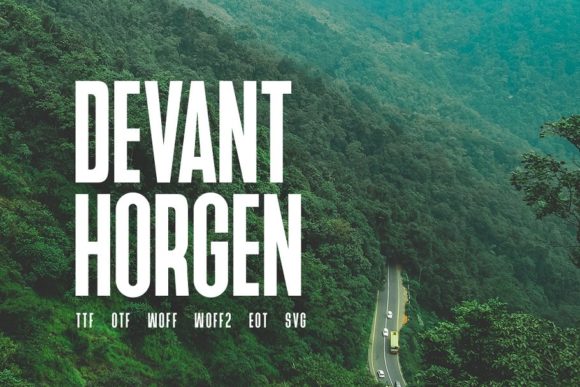
Unleash the Power of Expression: Introducing Devant Horgen, the Sans Serif Font Family That Will Transform Your Kindle Print Projects.
Journey into the realm of typography with Devant Horgen, a minimalist and neat sans-serif font family destined to revolutionize your Kindle print projects. Crafted meticulously by the skilled hands of Webhance, Devant Horgen is a symphony of clean lines, elegant curves, and understated sophistication that will elevate your creations to new heights.
With its inherent versatility, Devant Horgen effortlessly adapts to a vast array of projects, becoming the perfect companion for captivating e-books, engaging novels, informative reports, and any written work that demands a touch of refined elegance. Let your imagination run wild as you witness the transformative power of Devant Horgen, turning mere words into captivating tales that ignite the reader's imagination.
Discover the Joy of Minimalism: Embrace the Beauty of Simplicity
Immerse yourself in the artistry of minimalism with Devant Horgen, a font family that exudes simplicity and grace. Its clean and unadorned design allows your content to take center stage, ensuring that every word, every sentence, and every chapter shines with clarity and precision. Experience the joy of uncluttered typography as Devant Horgen gracefully enhances your words, providing a visual feast for the eyes.
A Seamless Canvas for Your Creative Vision: Unleash Your Inner Artist
Unleash the boundless creativity within you as Devant Horgen becomes the perfect canvas for your literary masterpieces. Its neutral and minimalist aesthetic serves as an ideal backdrop, allowing your words to burst forth with color and vibrancy. Whether you're crafting a thrilling mystery, a heartwarming romance, or an in-depth analysis, Devant Horgen will effortlessly adapt to your unique style, transforming your Kindle print projects into works of art.
A World of Possibilities: Endless Applications for Boundless Creativity
The Devant Horgen font family is a versatile chameleon, effortlessly adapting to a multitude of projects, each with its own unique charm. Let your creativity roam free as you craft captivating blog posts, design eye-catching e-book covers, or create visually stunning presentations. Devant Horgen will seamlessly integrate into your designs, enhancing their impact and leaving a lasting impression on your readers.